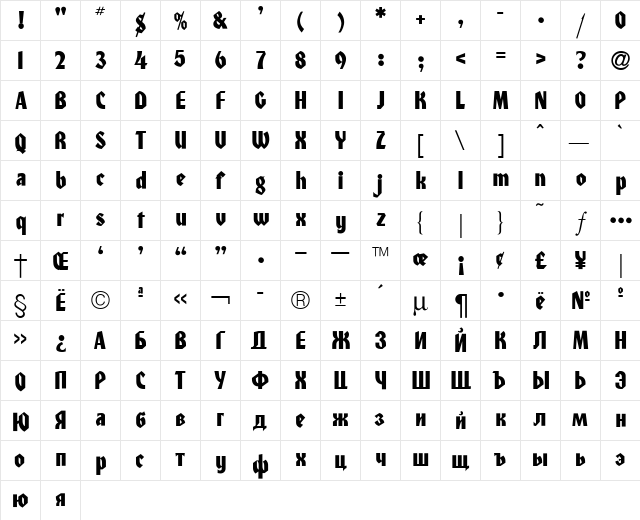
Honday TYGRA Regular
Design Context for Honday TYGRA Typeface
Honday TYGRA is a composed and adaptable typeface that performs quietly and consistently across a wide range of design contexts.